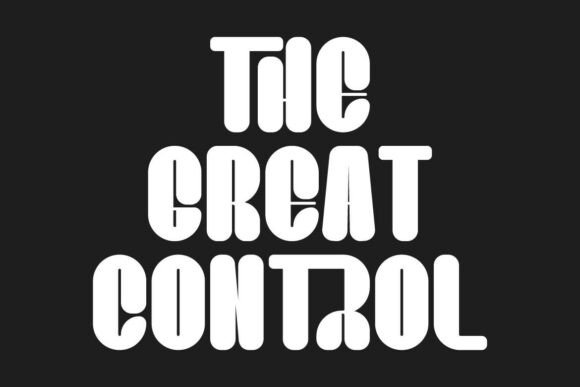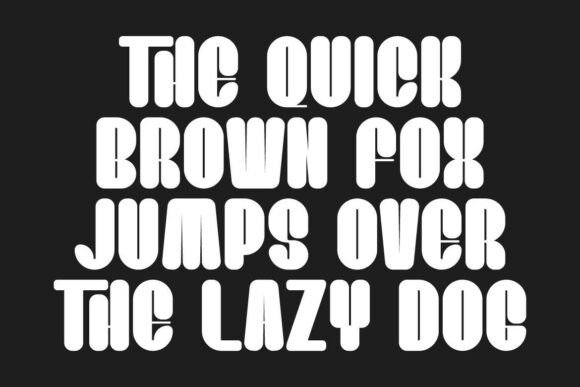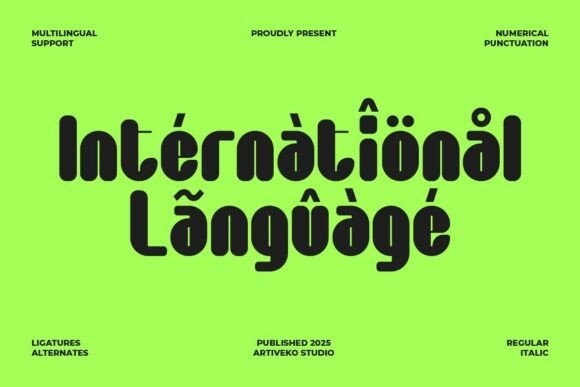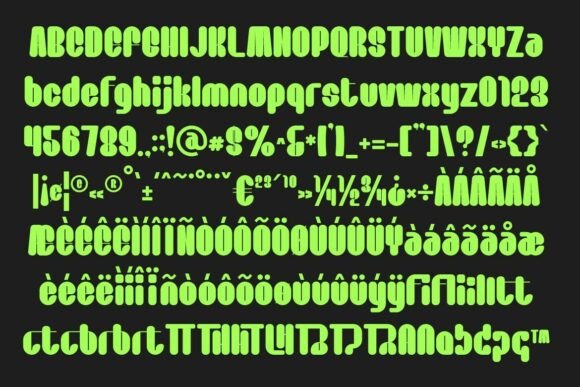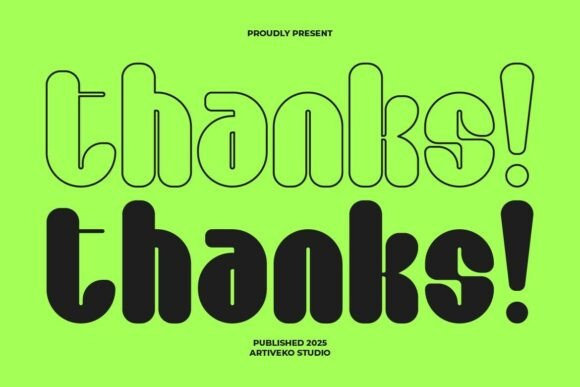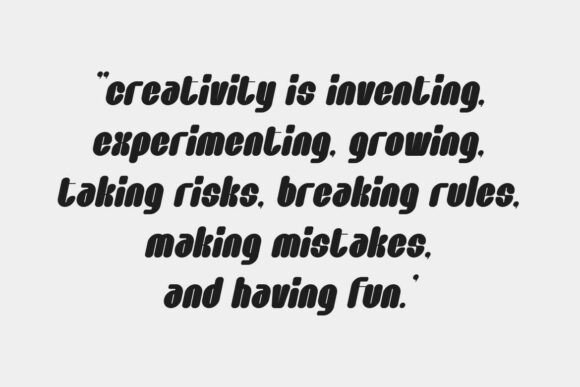
Introduction to Seppro Font
Imagine you’re working on a creative project, and you need a font that perfectly captures the essence of your brand’s personality. You’re scrolling through design resources, searching for the perfect match, when suddenly, you stumble upon the Seppro Font. Its bold, rounded sans serif design instantly catches your eye, and you can’t help but feel a spark of excitement.
As designers, we often find ourselves struggling to find the perfect font to elevate our designs. But what if I told you that the Seppro Font is more than just a design resource – it’s a game-changer. With its high-quality design and transparent background, this font is perfect for creating modern social media designs, tech interfaces, and even kids’ products.
Key Features of Seppro Font
- Seppro Font is designed to be scalable, making it suitable for use in a wide range of sizes, from 8pt to 200pt.
- The font features a high resolution of 300 DPI, ensuring crisp and clear typography in both digital and print applications.
- Seppro Font is a versatile design resource, suitable for use in a variety of creative projects, including branding, logos, and packaging design.
- The font’s unique characteristics, including its clean and modern design, make it an excellent choice for designers looking for a high-quality design resource.
Honest Review: Seppro Font
As a designer, I’m always on the lookout for high-quality design resources to elevate my creative projects. Recently, I stumbled upon the Seppro Font, and I’m excited to share my thoughts on it.
What works well: ✨ The font’s versatility is a major plus. It’s suitable for both digital and print projects, and it’s incredibly easy to use. The font is also highly customizable, with a range of styles and weights to choose from.
Some limitations: ⚠️ While the Seppro Font is a great resource, I did find that it’s not suitable for very small text sizes. It can become a bit blurry and difficult to read at very small sizes.
Overall, I’m really impressed with the Seppro Font. It’s a fantastic addition to any designer’s toolkit, and I highly recommend it for any creative project.
- Perfect for digital and print projects
- Beautiful, modern design
Tips for Getting the Most Out of Seppro Font
For the best results, use Seppro Font in a size that is easily readable. Also, pair it with a suitable background to enhance the design of your creative project. Experiment with different font combinations to achieve the desired effect.
Seppro Font is ideal for use in logos, headings, and titles. It’s a popular design resource for free download, and its high-quality features make it suitable for a wide range of creative projects.